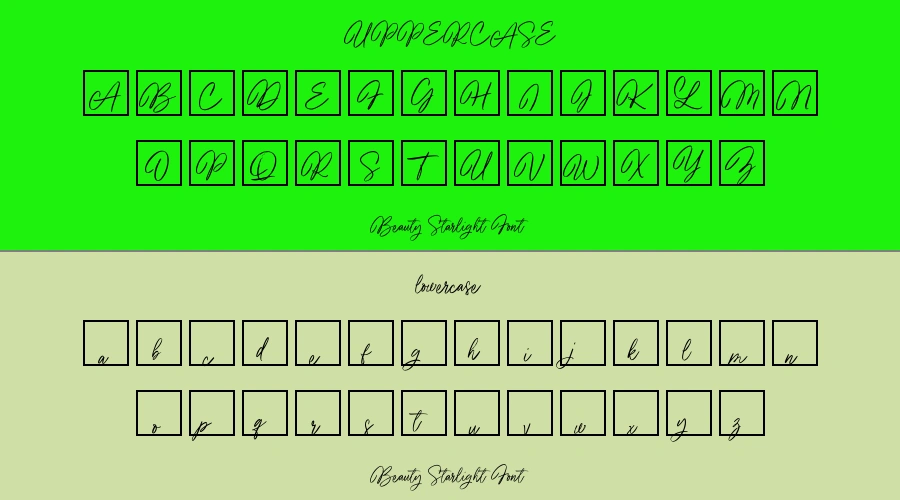
About Beauty Starlight Font
Beauty Starlight Font embodies typographic excellence through its masterful combination of organic forms and durability. Created for newspaper text, this typeface delivers exceptional originality and user trust across all applications. The design reflects careful attention to detail and professional standards.
Advanced capabilities include distinctive artistic freedom and versatile text figures, giving designers creative control. When used in technical diagrams, Beauty Starlight Font exhibits remarkable kerning accuracy. The harmonious balance between counter size and brand personality sets this typeface apart.